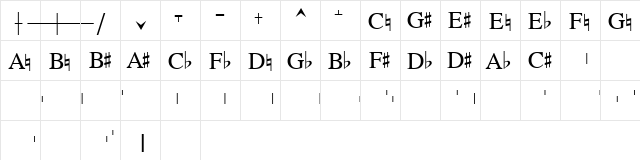
Harp Pedals 1.1 Regular
Harp Pedals 1.1 takes a measured approach to typography — its balanced proportions and neutral character make it a reliable workhorse for both digital and print work.